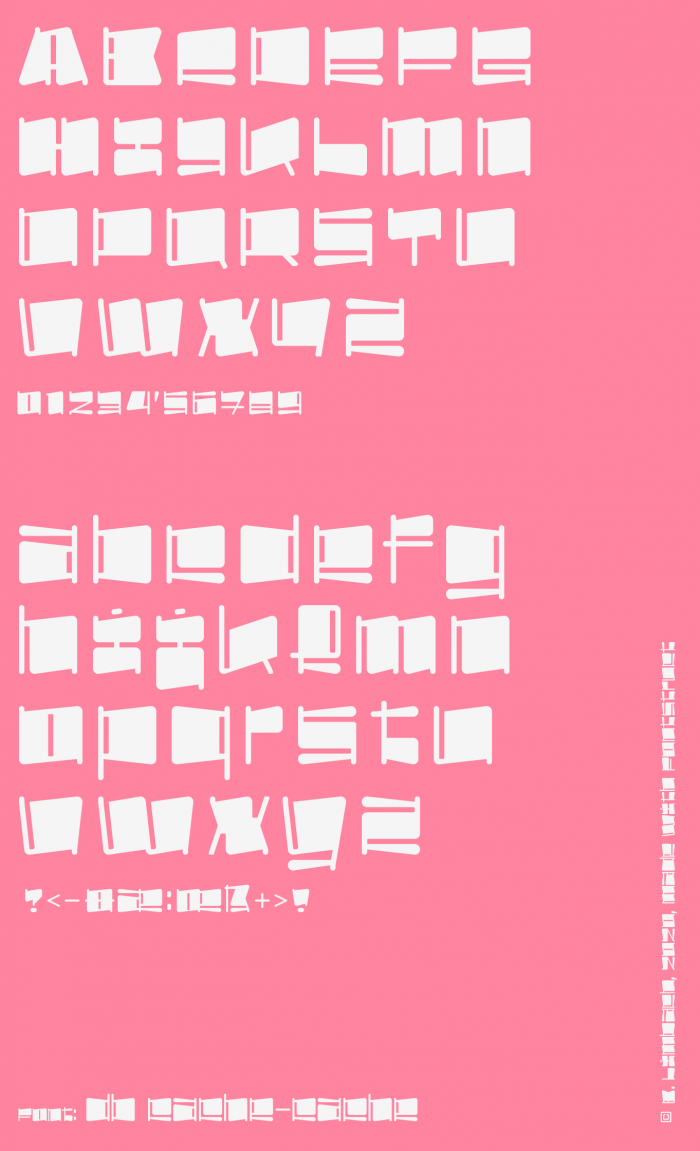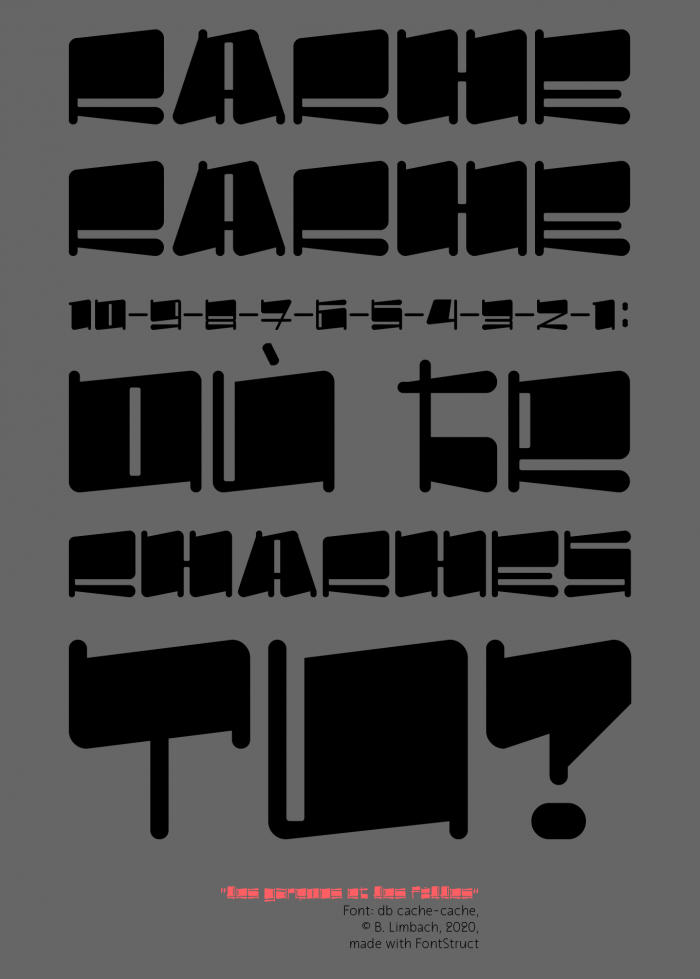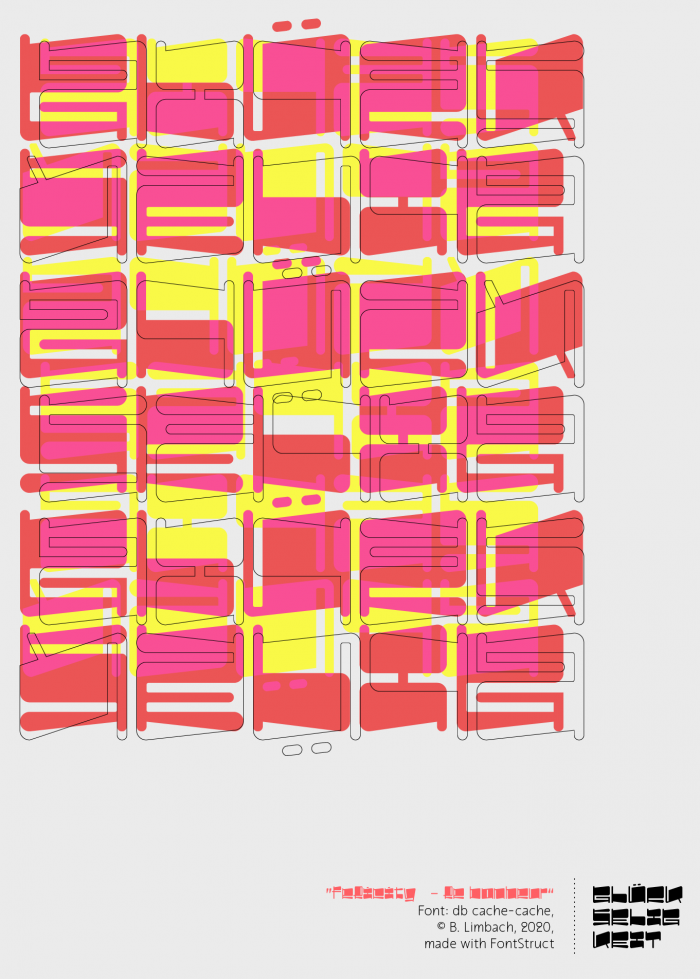
After I slipped past the theme of the "Future-Competition" with db Catch, I thought it would be interesting to make something new, something more coherent out of the basic idea.
Such beauty. Awe!
Wow, funky work and excellent samples!
Hey, dear maestra: I'm with the people, especially about the superb samples! ❤️!
beautiful design 10/10
However, uc H looks too thick.
Very pretty. 10/10
I really love the vibe and wave feel, this very fresh font grabs attention.
After I slipped past the theme of the "Future-Competition" with db Catch, I thought it would be interesting to make something new, something more coherent out of the basic idea.
How can you tell which is: UPPERCASE U WITH RING and LOWERCASE U WITH RING in this font?